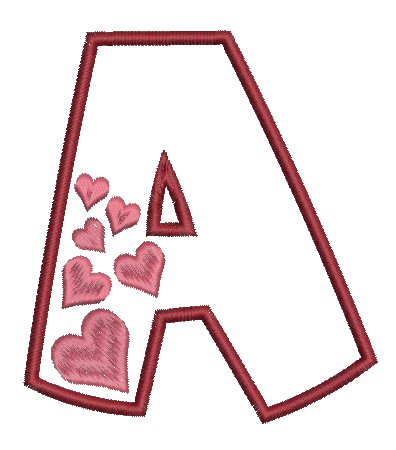
No 30 Heart Font Machine Embroidery Designs 4 inch high
This set contains 52 TWO-color Designs:
26 Uppercase Alphabet - just under 4" high with satin stitch filled hearts
26 Uppercase Alphabet - just under 4" high with heart outlines
Designed for 1 Letter Monograms